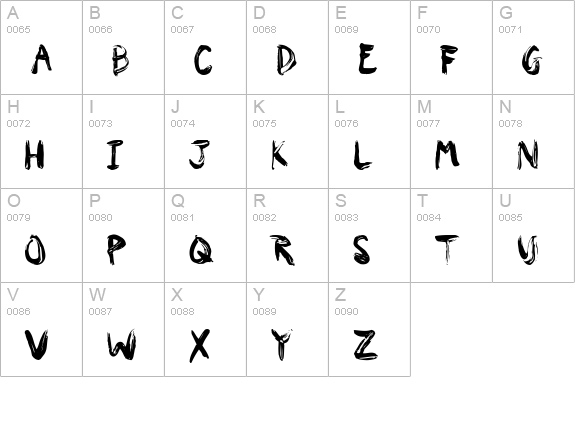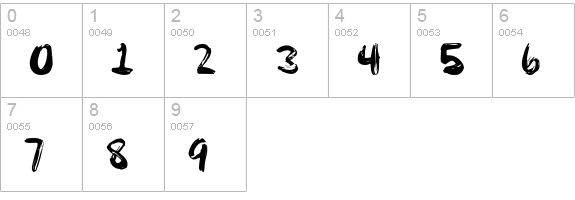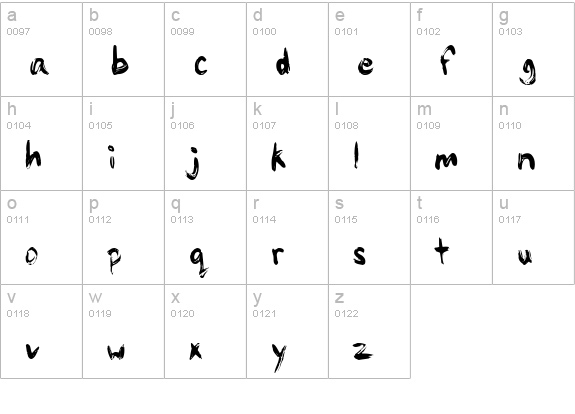
PaintyPaint 1 Font Details
Introducing PaintyPaint 1 font, a captivating and versatile typeface that will bring your designs to life with its bold and expressive brush strokes. This unique font exudes creativity and adds a touch of artistic flair to any project. With its free-spirited and playful nature, PaintyPaint 1 font is perfect for a wide range of design purposes. Whether you're working on a logo, poster, invitation, or social media graphic, this font will effortlessly capture attention and make a lasting impression. The carefully crafted brush strokes of PaintyPaint 1 font give it a hand-painted appearance, adding an organic and human touch to your designs. Each character has its own distinct personality, with varying line weights and irregularities that create a sense of authenticity. One of the best features of PaintyPaint 1 font is that it is freely available to download at FontsMarket.com. This means that you can easily incorporate this stunning font into your projects without any restrictions. Whether you're a professional designer or a hobbyist, this font is accessible to all, allowing you to unleash your creativity without limitations. PaintyPaint 1 font offers a wide range of glyphs and ligatures, providing you with endless possibilities for customization. Experiment with different letter combinations and styles to create truly unique and eye-catching designs that stand out from the crowd. So why wait? Download PaintyPaint 1 font today from FontsMarket.com and let your imagination run wild. Whether you're designing for print or digital media, this free and captivating font will elevate your projects to new heights, leaving a lasting impression on your audience. Embrace the artistic freedom that PaintyPaint 1 font offers, and watch your designs come to life with its vibrant and expressive brush strokes.